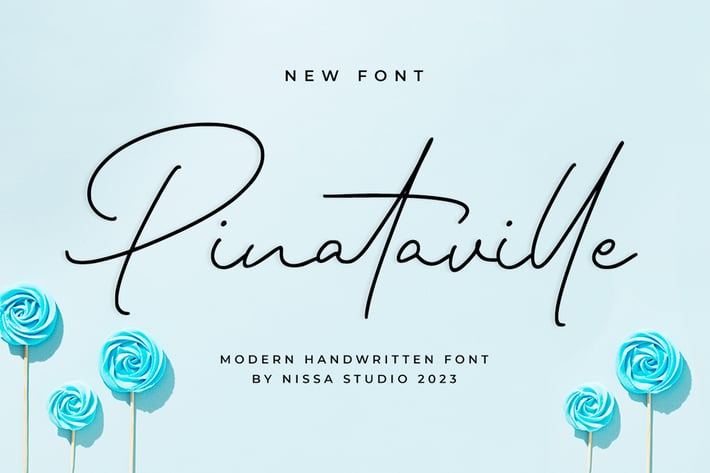
Pinataville - Monoline Font
Pinataville is a graceful and cursive handwritten font. It has beautiful and well balanced characters and as a result, it matches a wide pool of romantic designs.
Modern Handwritten Font
Beautiful Swash (Ending tail)
Beautiful Titling (Beginning tail)
Special Ligatures